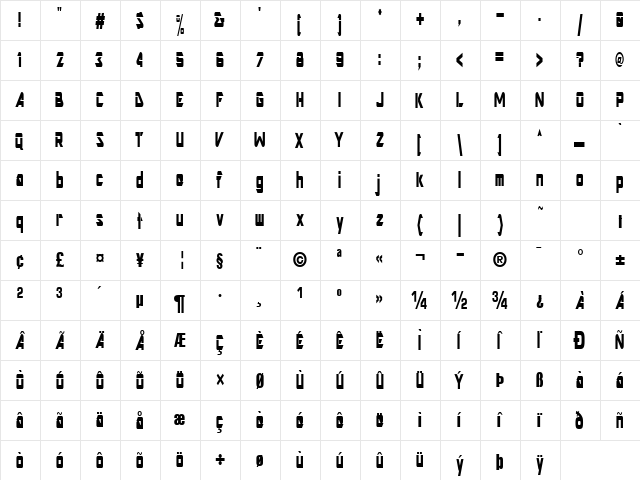
Art Regular
Design Context for Art Typeface
Art offers clean, dependable letterforms without strong stylistic allegiance, making it a practical choice for designers who need flexibility.